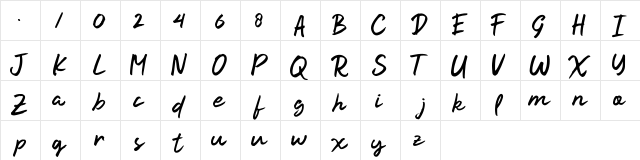
Kindson Free Regular
Design Context for Kindson Free Typeface
Kindson Free is a composed and adaptable typeface that performs quietly and consistently across a wide range of design contexts.